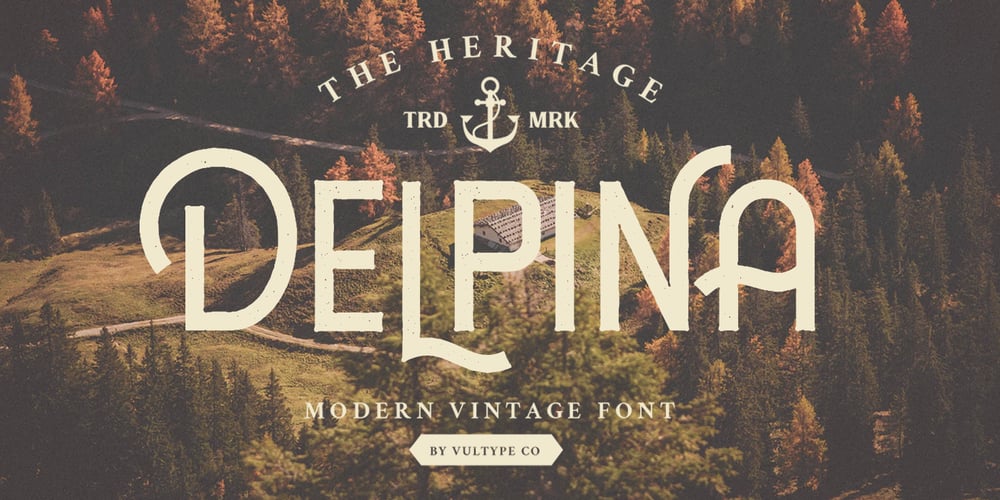
Delpina Font Family was designed by Candra Hamdani and published by Vultype Co. Delpina contains 2 styles and family package options. Delpina is inspired by the vintage old American which has two styles, Clean and Rough also come with a lot alternative characters. Made carefully to create the perfect texture and suitable for each of your projects also great for Logotype, Branding Design, Logo Design, Digital Lettering Arts, T-Shirt/Apparel, Poster, Magazine, Signs, Advertising Design, and any vintage design needs. Software for use this font: Adobe Illustrator, Adobe Photoshop, Adobe Indesign, Word, Corel draw, inkscape). Cheers ! Chandra – Vultype Co